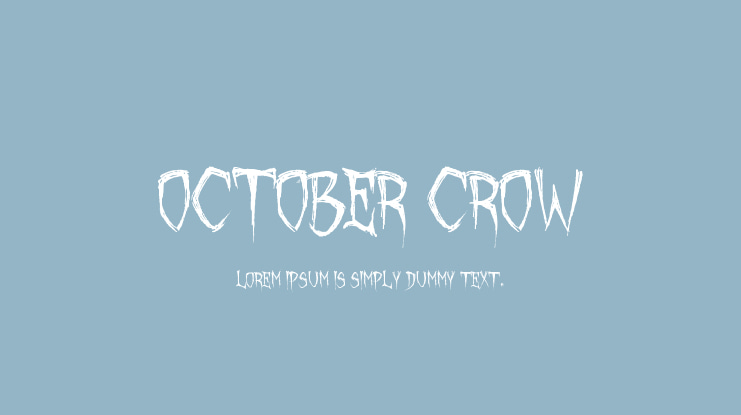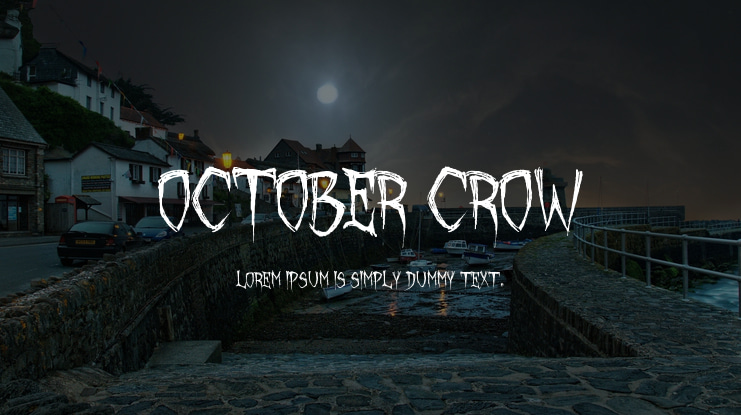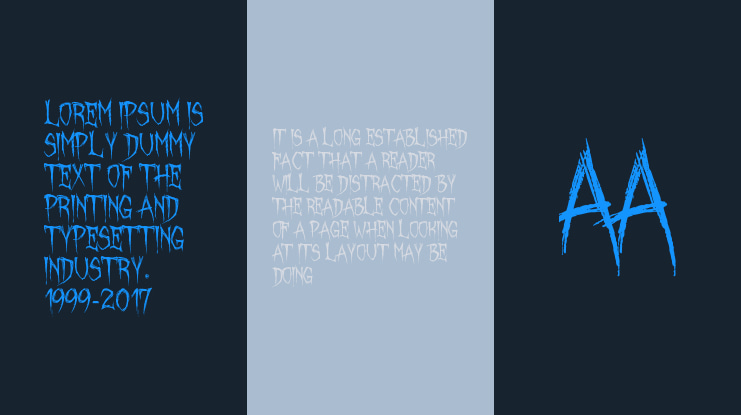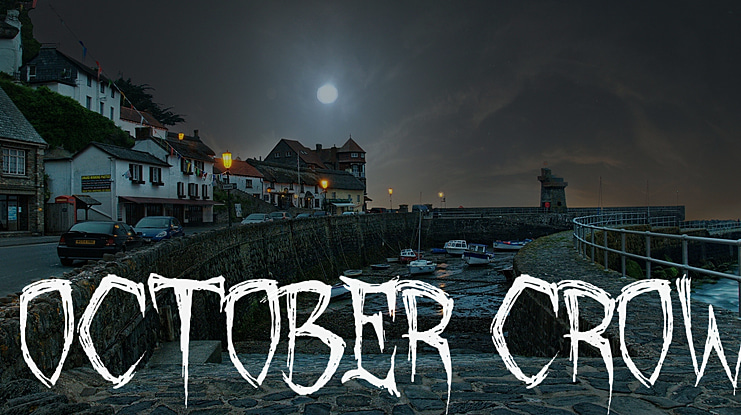
October Crow Font
Chad Savage
Note of the author Created 2010, hand-lettered while watching The Crow on Devil's Night 2010. Turned into a PC font on Halloween, 2010.